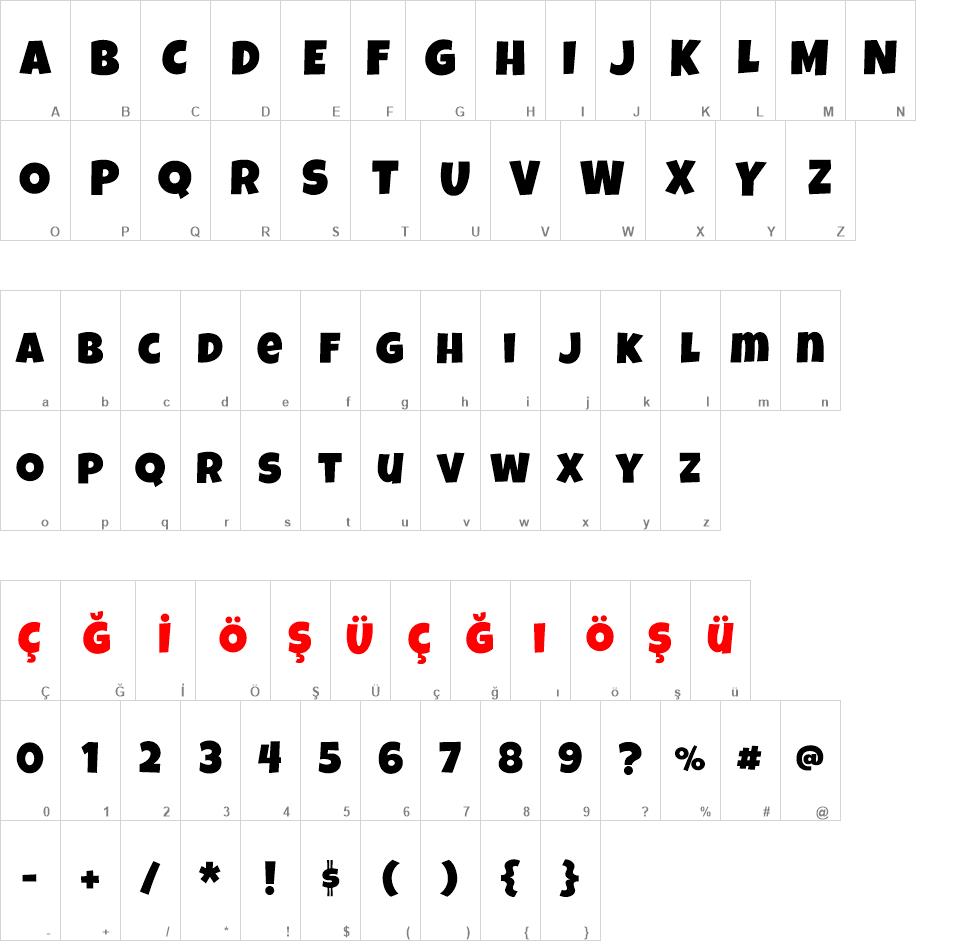
Luckiest Guy Free Fonts
Luckiest Guy Free Fonts. It is inevitably a good choice to use this font in your website and graphic designs. But you can use this free version that you can utilize in personal projects.
Use the text generator tool below to preview luckiest guy font, and create appealing text graphics with different colors and hundreds of text effects. This font style is placed under the apache license, version 2.0. Take luckiest guy for a spin and let him pack a punch for both your website and your design work.
Big As Well As In Charge, This Offbeat, Lovably Legible Font Lends Alone To All Sorts Of Employs.
It Is A Handmade Display Font That Has Grabbed Immense Acclaim After Its Release.
This typeface is created by a very famous font maker named. Making the web more beautiful, fast, and open through great typography Luckiest guy font is a very charming and strong texture font that you can also download from our website.